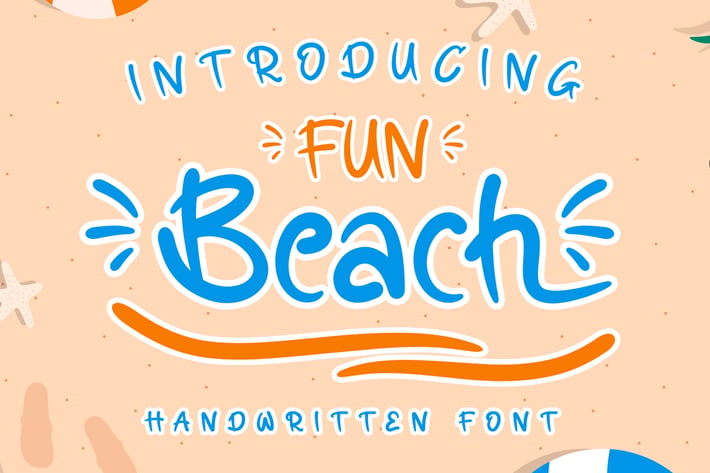
Fun Beach - Playful Handwritten Font
Fun Beach is a unique display typeface perfect for titles, large text, branding, logotypes & graphic design purposes such as posters, pamphlets, and advertisements. This letter font can be a great choice for creating amazing logos, promotional content, and marketing presentations that can bring uniqueness and freshness at its best.
Uppercase and Lowercase letters
Numbering and Punctuations
Alternate